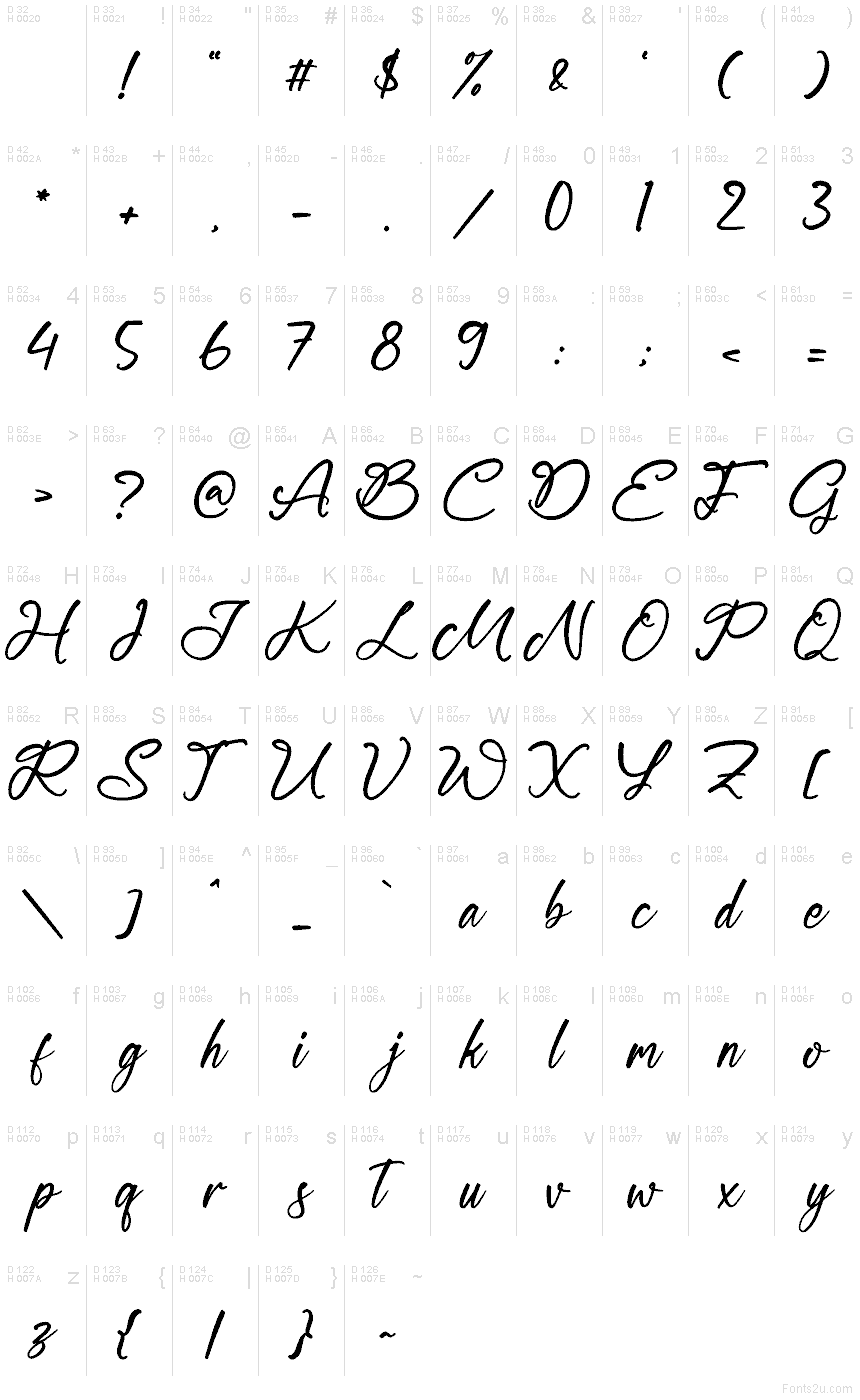
Magnetta Wettney
Magnetta Wettney font by Integritype Studio captures the essence of elegance with its flowing, signature-like style. This free handwritten font is expressive and exudes an artistic flair that brings a unique touch to any project.
Use it in logos, clothing designs, posters, special packaging, restaurant menus, magazine covers, business cards, invitations and more. Other uses include book titles and web projects.